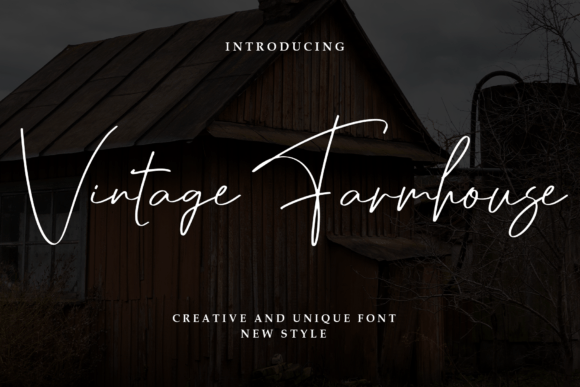
Welcome to the realm of Vintage Farmhouse Font, an exquisite creation by andikastudio that will transport you to a world of timeless beauty and romantic charm. This enchanting script font is a captivating fusion of elegance and authenticity, designed to evoke nostalgia and captivate hearts.
Step into a world of handwritten artistry with Vintage Farmhouse Font, where each letter dances with grace and fluidity. Its elegant strokes and subtle curves exude a sense of intimacy and warmth, making it the perfect choice for those seeking a font that speaks to the soul.
Let your designs blossom with the unique charm of Vintage Farmhouse Font. Its carefully crafted characters possess a timeless quality, effortlessly blending the past with the present. Its versatility allows it to adapt seamlessly to a wide range of projects, from heartfelt love letters and heartfelt poems to elegant wedding invitations and whimsical branding.
Indulge in the romantic allure of Vintage Farmhouse Font and let your creative spirit soar. Its intricate details and delicate flourishes will add a touch of charm to any project, capturing the attention of viewers and leaving a lasting impression.
Embrace the timeless beauty of Vintage Farmhouse Font and unlock the door to a world of creative possibilities. With its ability to evoke emotions and create a sense of nostalgia, this font is sure to become your go-to choice for projects that demand a touch of elegance and romance.